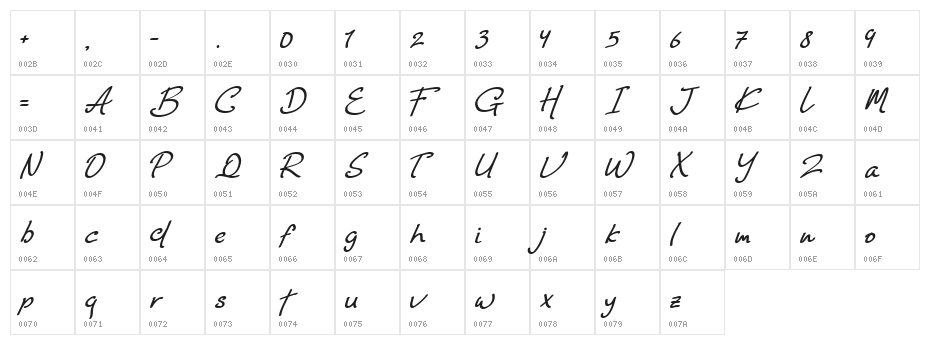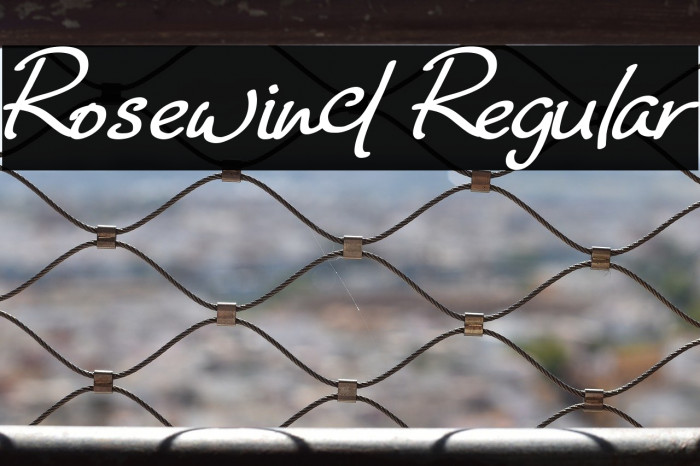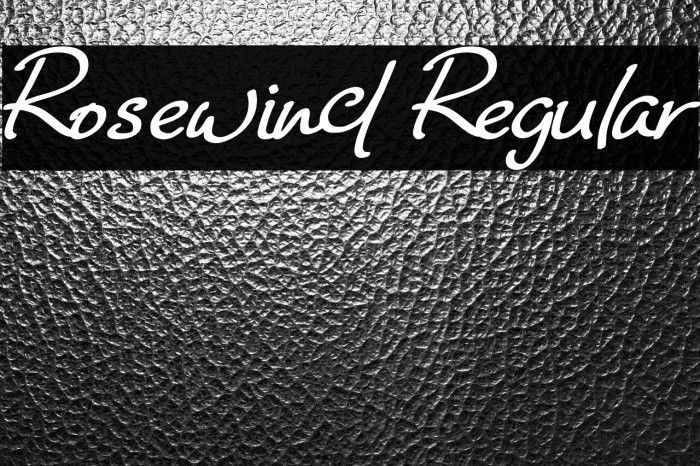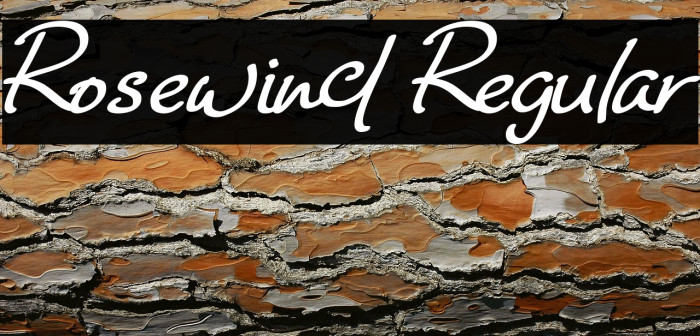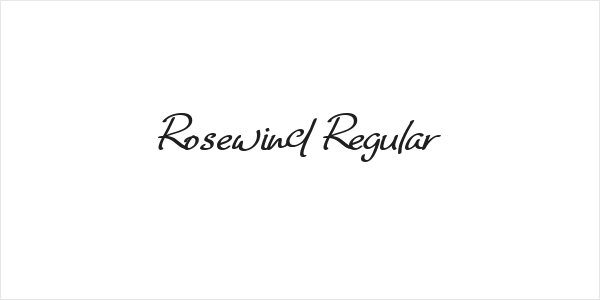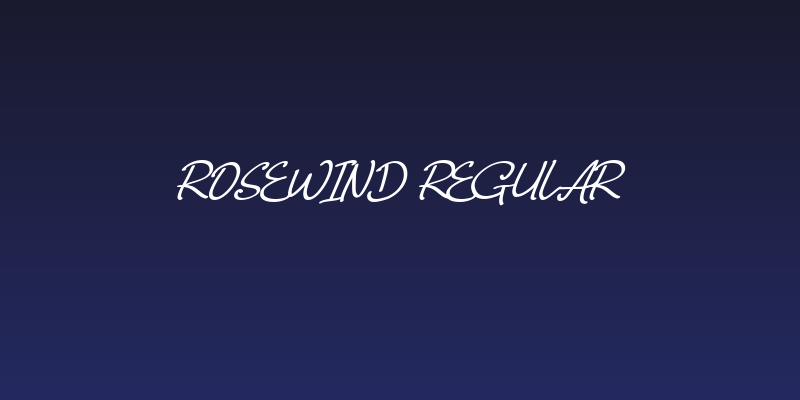
Rosewind Regular Font
Rosewind Regular Description
This font exudes a lively and elegant script style, characterized by its fluid and connected letterforms. The strokes are smooth and exhibit a natural flow, reminiscent of traditional handwriting with a modern twist. The uppercase letters are bold and prominent, while the lowercase letters maintain a graceful and consistent rhythm. The numbers and special characters are designed to complement the overall aesthetic, ensuring a cohesive appearance across all text. This font is perfect for projects that require a personal touch, combining readability with artistic flair.
| Use Case | Logos, Invitations, Personal Branding |
| Proposed Projects | Ideal for wedding invitations, greeting cards, personal branding, and creative design projects. |